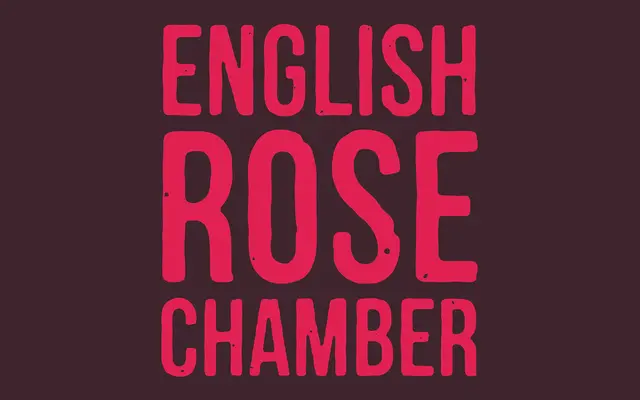
Mocha Mattari
Dharma Type · 2010
Mocha Mattari specimen from Dharma Type
A deliberately worn all-caps display font derived from Bebas Neue, with hand-damaged letterforms and OpenType ligatures for common unit abbreviations.
Built on the skeleton of Bebas Neue, the letterforms have been physically damaged and manually reworked to produce a gritty, tactile surface. The family is all-caps but includes a set of alternate uppercase glyphs, with discretionary ligatures covering shorthand unit combinations such as g, oz and lb. Suited to rough-edged poster work, packaging and any setting where clean geometric caps would feel too polished.
An all-caps distressed typeface derived from Bebas Neue, with intentional damage and manual alterations giving it a worn, tactile character suited to bold display use.